Step back in time and experience the beauty of ancient typography with Canva’s newest feature – Ancient Fonts. With this innovative tool, you can transport yourself to different eras and cultures, all through the power of historical typography. Join us on a journey through the ages as we explore the art and history behind these fascinating fonts. It’s time to bring the past to life in the present!
Discover the Beauty of Ancient Fonts
Embark on a journey through time as we explore the enchanting world of ancient fonts. These unique typographic styles have stood the test of time, each with its own story to tell. From the elegant curves of Trajan to the mysterious symbols of Futhark, there is a beauty and charm in these historical scripts that is truly captivating.
Immerse yourself in the rich history and cultural significance of these ancient fonts. Discover how they were used in different civilizations and how they have evolved over the centuries. From inscriptions on ancient monuments to sacred texts, each font has a story to tell and a beauty to behold. Let the intricacies of these timeless scripts inspire you and uncover the hidden treasures of the past.
Unravel the History Behind Typography
Typography is not just a form of design; it is a rich tapestry woven with the threads of history. The evolution of typography can be traced back to ancient civilizations such as the Egyptians, who used hieroglyphics for communication. As time progressed, different cultures developed their own unique forms of writing, each contributing to the diverse world of typography we see today.
The introduction of the printing press in the 15th century revolutionized the way typography was used. Johannes Gutenberg’s invention allowed for mass production of printed materials, paving the way for the spread of knowledge and information. Over the centuries, various typefaces were created, each reflecting the artistic and cultural movements of their time. Today, typography continues to evolve with digital advancements, giving designers a wide array of tools to express their creativity. From classic serif fonts to modern sans-serif styles, typography remains a key element in design that shapes how we interpret and interact with information.
Travel Through Time with Historical Lettering
Are you fascinated by history and calligraphy? Step into the world of historical lettering and travel through time with stunning examples of intricate scripts from different eras. From the elegant swirls of Renaissance handwriting to the bold strokes of Art Deco typography, each style carries a unique story that reflects the culture and values of its time.
Immerse yourself in the beauty of ancient manuscripts, illuminated letters, and ornate inscriptions that have stood the test of time. Explore the evolution of letterforms through centuries, delving into the artistry and skill required to create these timeless pieces. Discover the nuances and subtleties of each script, and marvel at the dedication and craftsmanship of the scribes and typographers who preserved these precious artifacts for generations to come.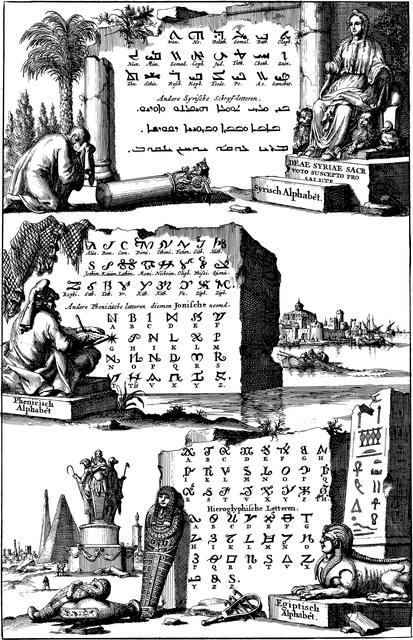
Exploring the Influence of Ancient Typography on Modern Design
Typography has always played a significant role in design, and it’s fascinating to see how ancient typographic styles have influenced modern design trends. The intricate calligraphy of ancient manuscripts and inscriptions has sparked a revival of decorative typefaces in contemporary graphic design. Designers today are incorporating elements like ornate serifs and embellished letterforms inspired by historical scripts to add a touch of elegance and sophistication to their work.
Moreover, the use of negative space and geometric patterns in ancient typographic design has also had a lasting impact on modern design aesthetics. The clean lines and minimalist approach of ancient typographic layouts have influenced the creation of sleek and modern branding designs. By drawing inspiration from ancient typographic techniques, designers are able to infuse their work with a sense of timelessness and artistry that resonates with audiences in today’s fast-paced digital world.
Tips for Incorporating Ancient Fonts into Your Projects
When incorporating ancient fonts into your projects, it’s essential to consider the overall aesthetic and historical context. Start by researching the time period and region from which the font originated, as this will help you understand the significance and purpose behind the design. Utilize resources such as historical texts or museum archives to gain insight into the cultural significance of the font.
Experiment with different font pairings to create a balanced and visually appealing design. **Mixing ancient fonts with modern ones** can add a unique and dynamic element to your project. Additionally, consider implementing subtle design elements inspired by the time period of the font, such as decorative borders or motifs, to enhance the overall theme. Remember, incorporating ancient fonts is not just about aesthetics; it’s about telling a story and honoring the rich history behind the font.
A: To effectively incorporate historical typography into designs, designers should consider the context and purpose of their project. By using historical fonts strategically and in moderation, designers can create a balanced and visually appealing design that pays homage to the past while remaining contemporary.
Travel back in time with Ancient Font Canva and experience the beauty and history of typography like never before.